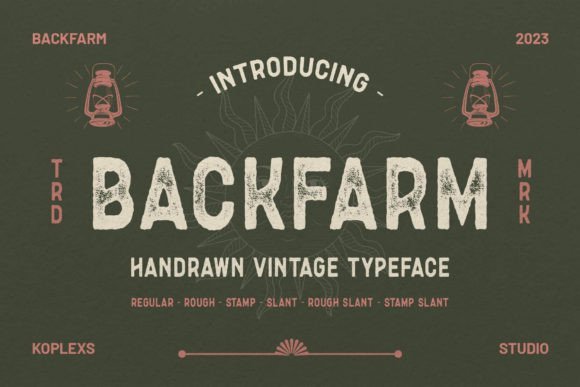
Introduction to Backfarm Font
Backfarm – Handrawn Vintage Typeface Backfarm fonts is the epitome of vintage charm and hand-drawn authenticity.
This versatile font family offers a range of styles to suit your design needs, including Backfarm Regular for clean, classic appeal, Backfarm Rough for a rustic touch, and Backfarm Stamp for an edgy, stamped effect Need a slanted variation.